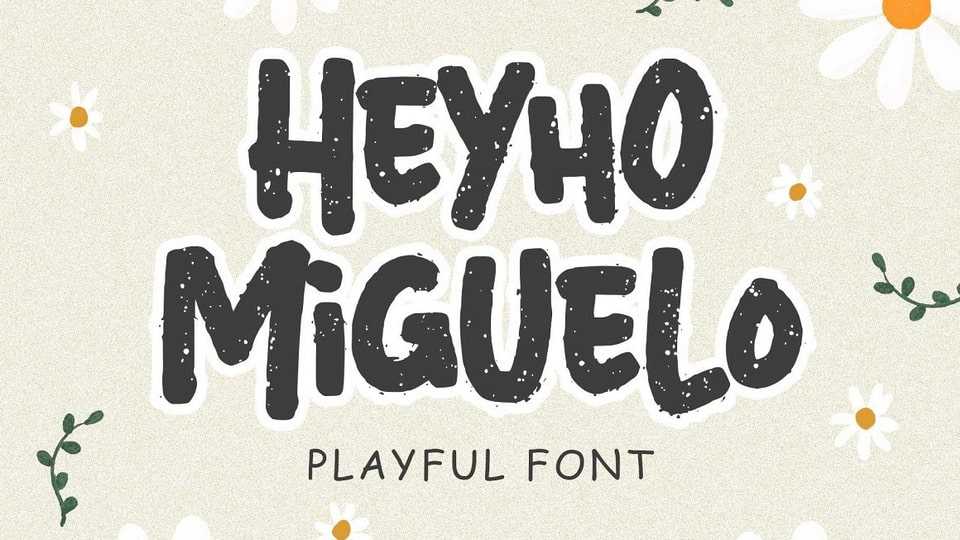
Download Heyho Miguelo! font, a handwriting typeface effortlessly captures the natural flow of handwriting with a playful design and a subtle rough touch on the letterforms, adding a unique and cheerful vibe to your typography.